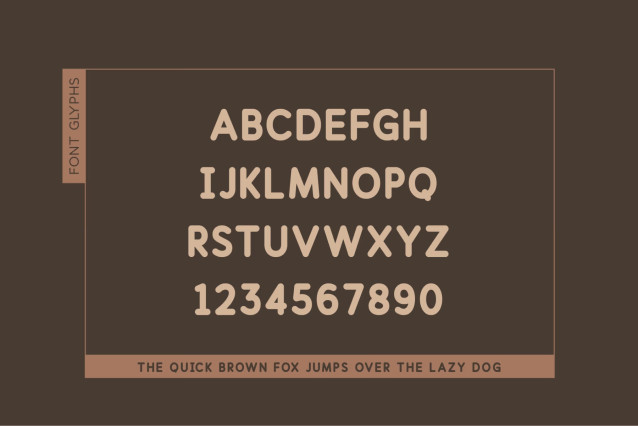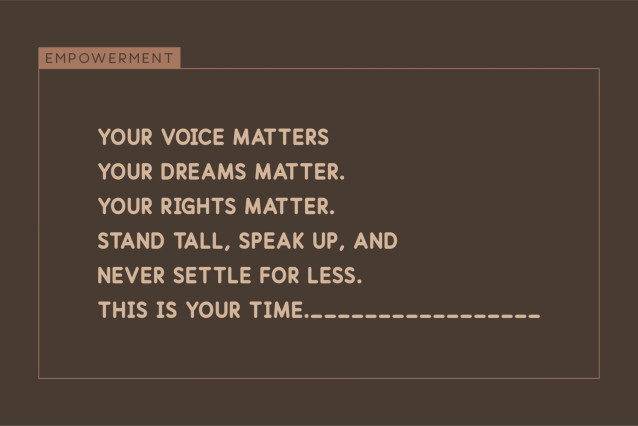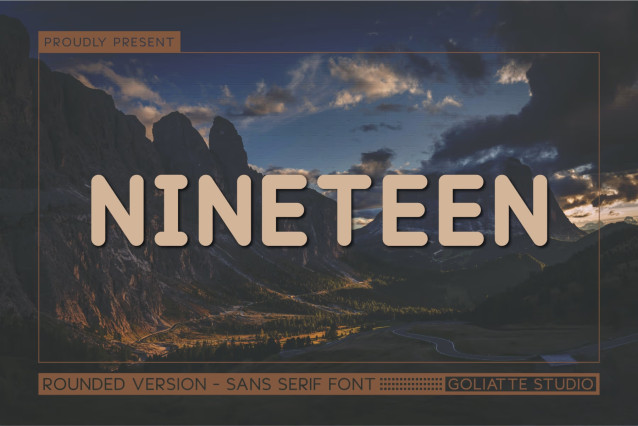
Nineteen Font
Establish effortless modern clarity, friendly structural strength, and clean architectural balance with Nineteen! This rounded display sans pairs solid geometric stems with fully smoothed terminal joints and wide letterforms. It delivers high-impact readability with a relaxed, contemporary feel.
Perfect for tech startup logos, modern outdoor apparel, sports branding, mobile app headers, poster titles, and clean editorial layouts!